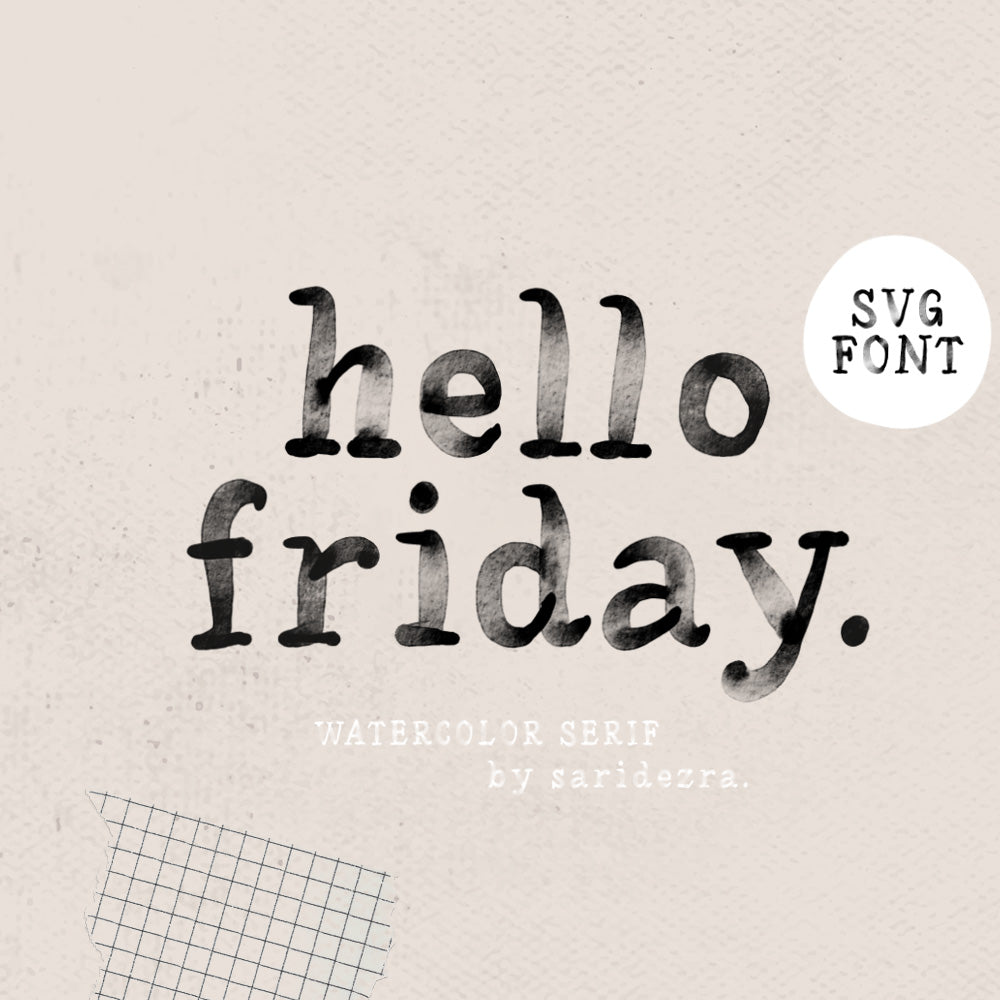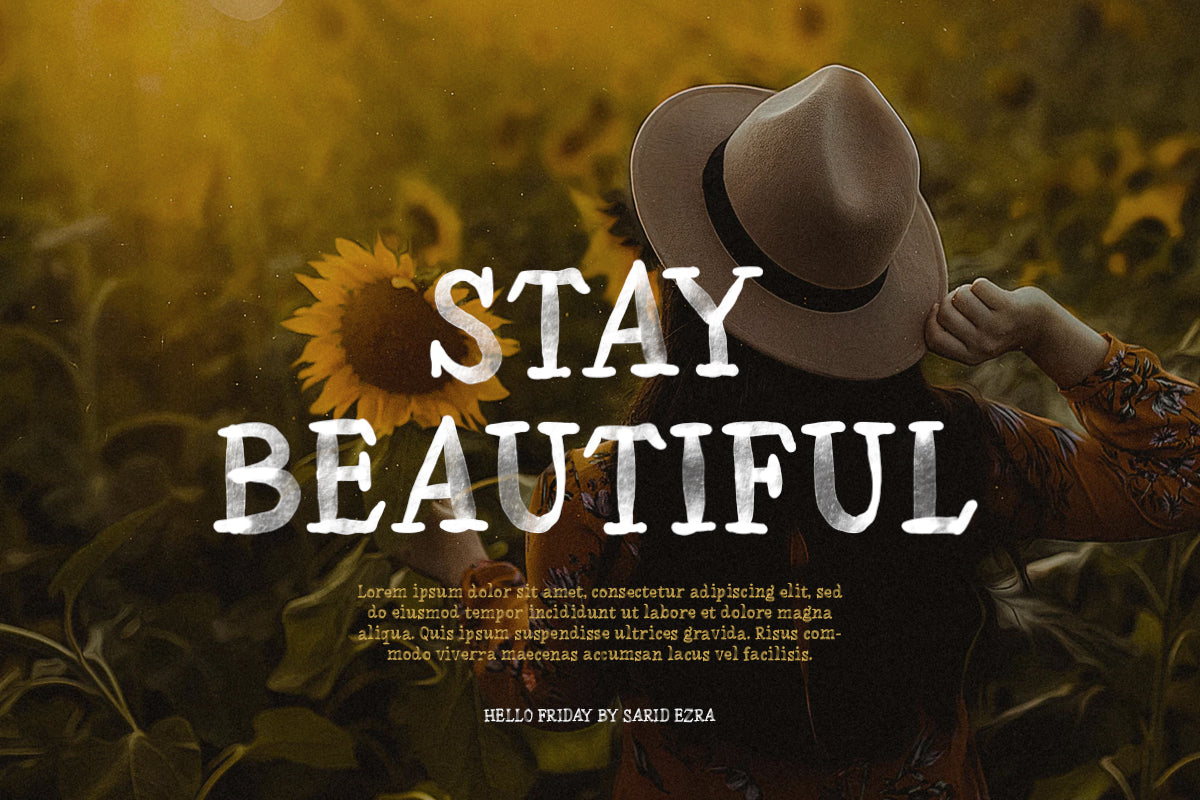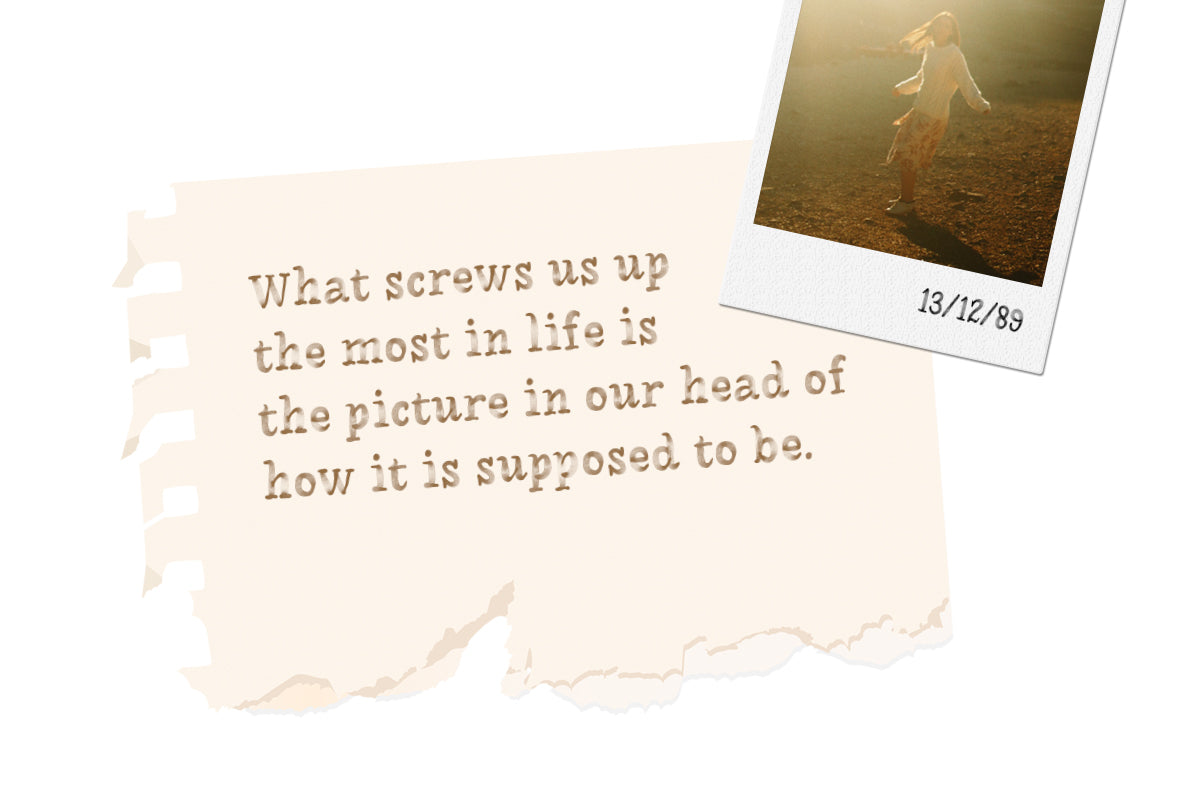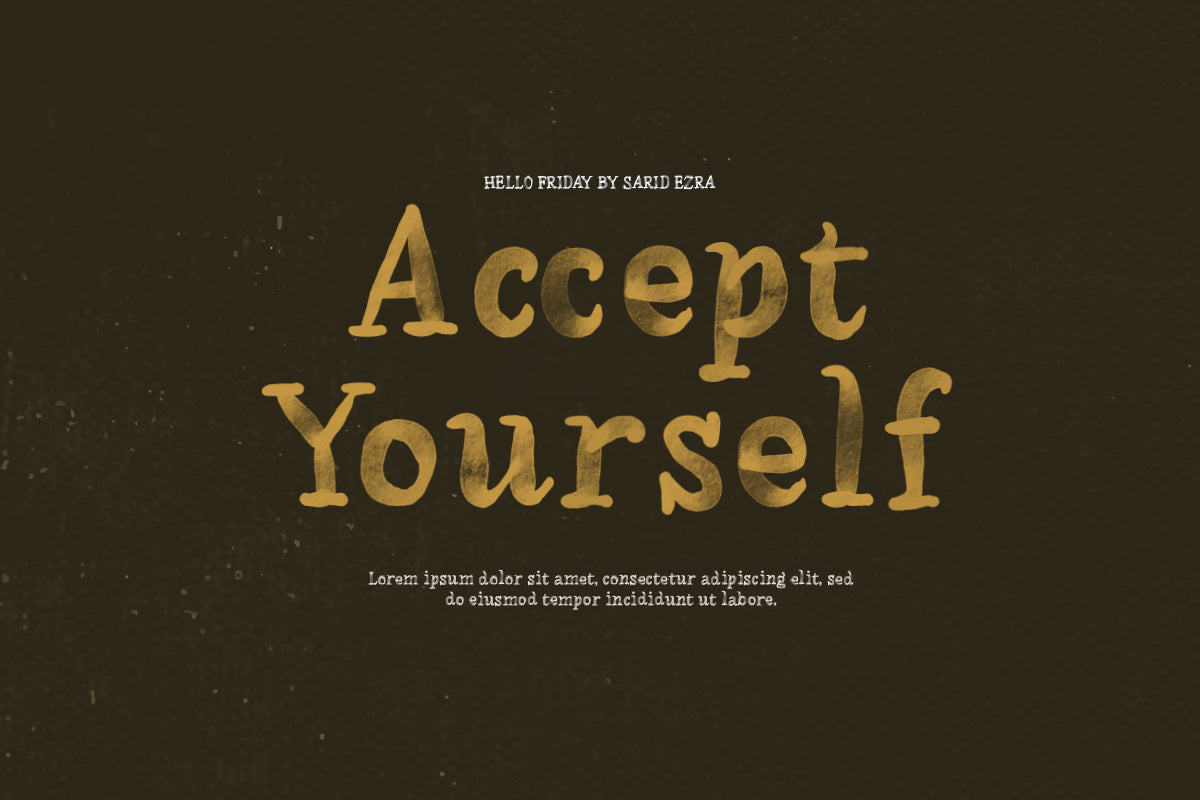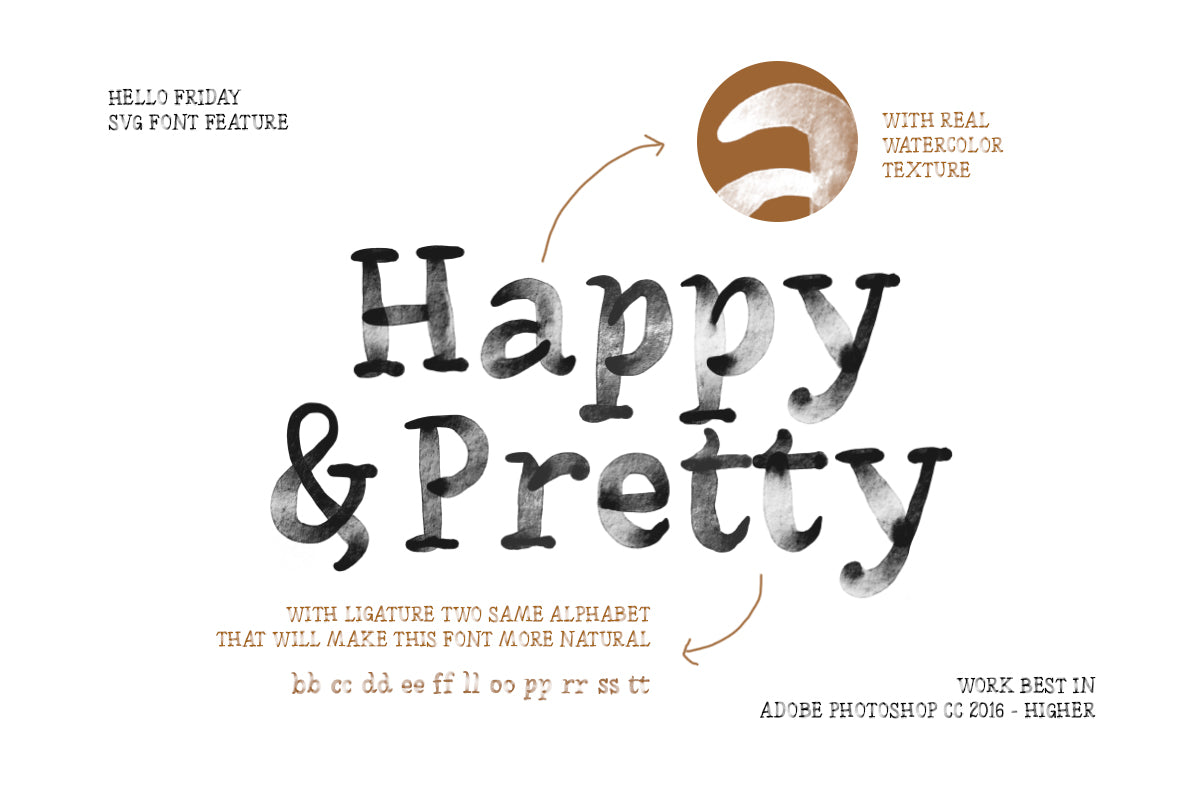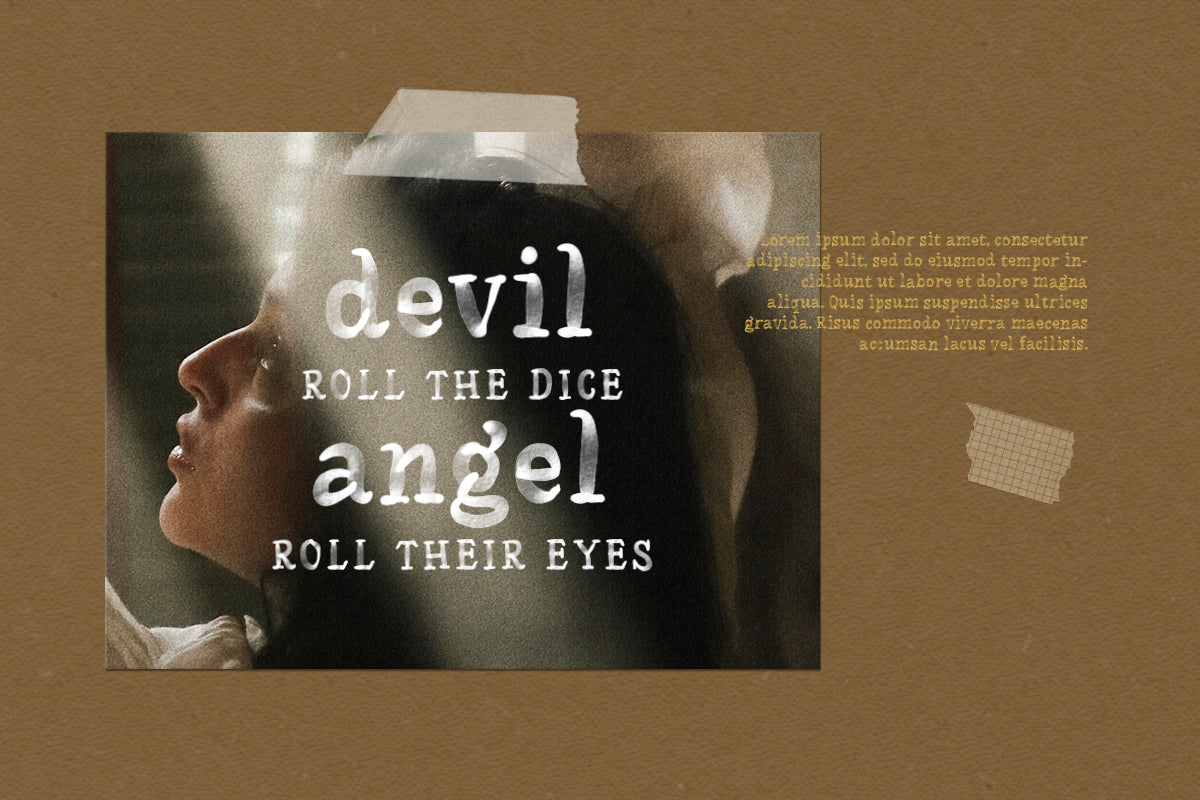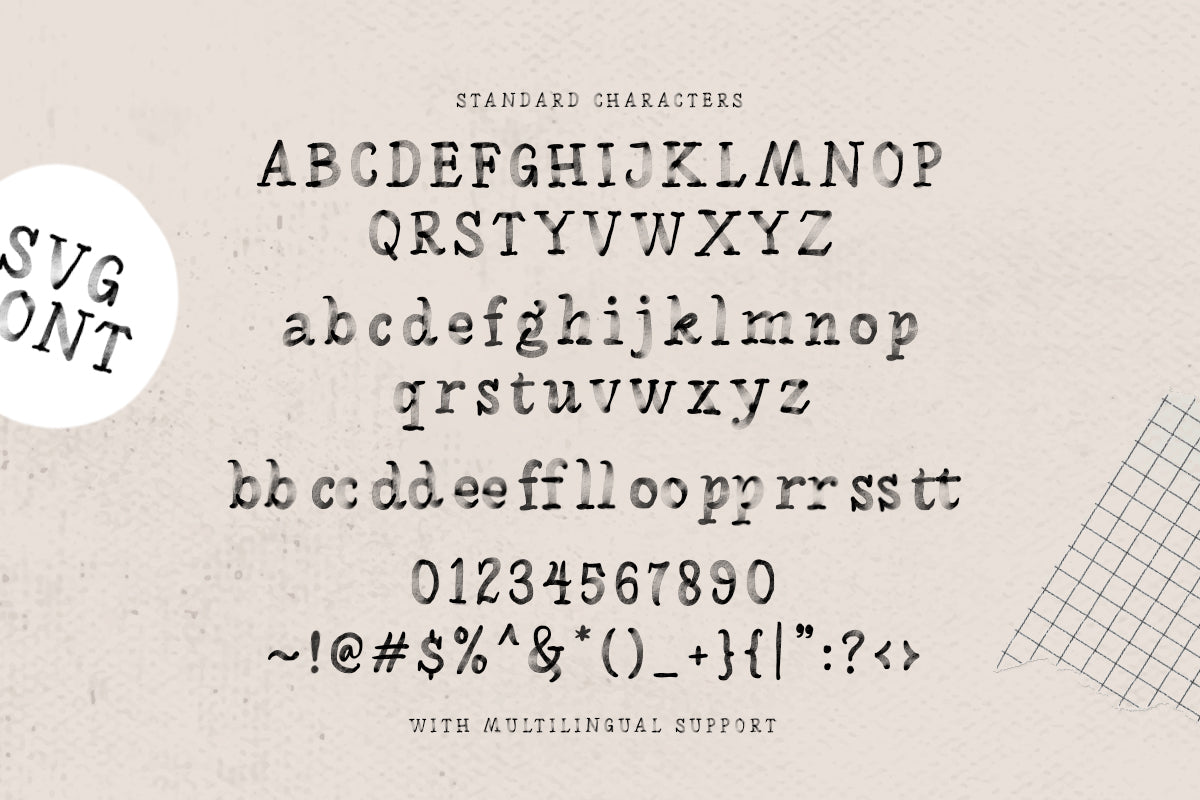
Hello Friday - Watercolor SVG Font
Hello Friday is an SVG watercolor serif font that includes both SVG (SVG OTF) and vector (OTF) formats. It features double ligatures, numbers, symbols, and punctuation, and supports multilingual characters, offering an organic and natural aesthetic.